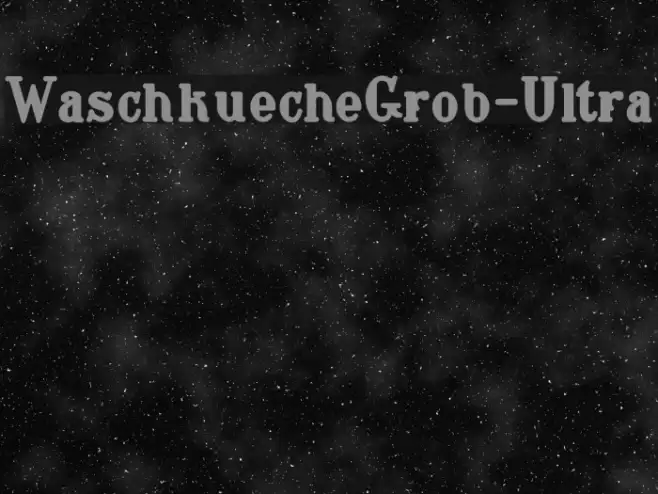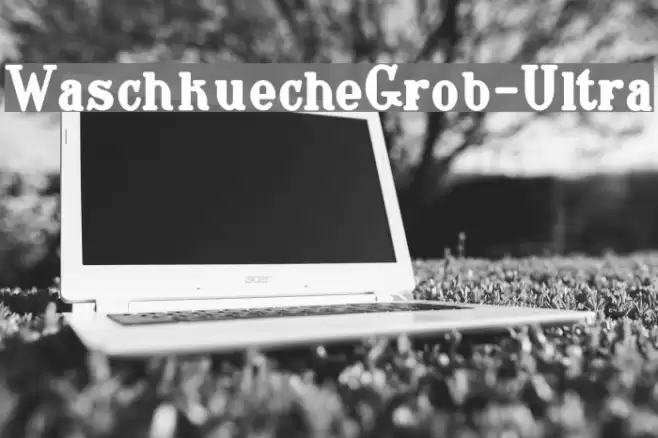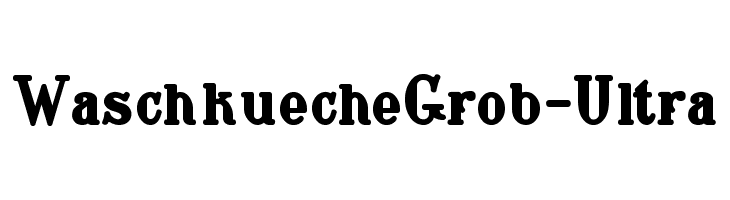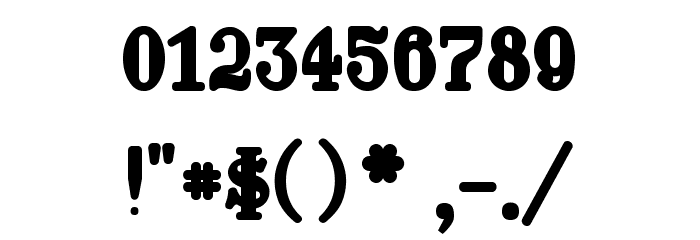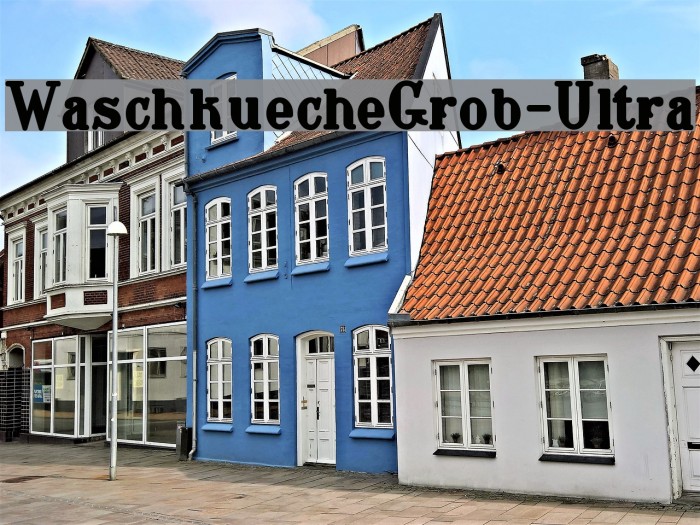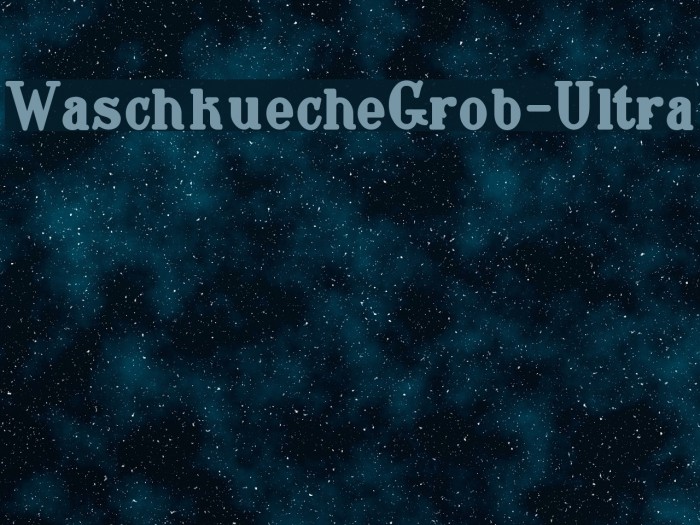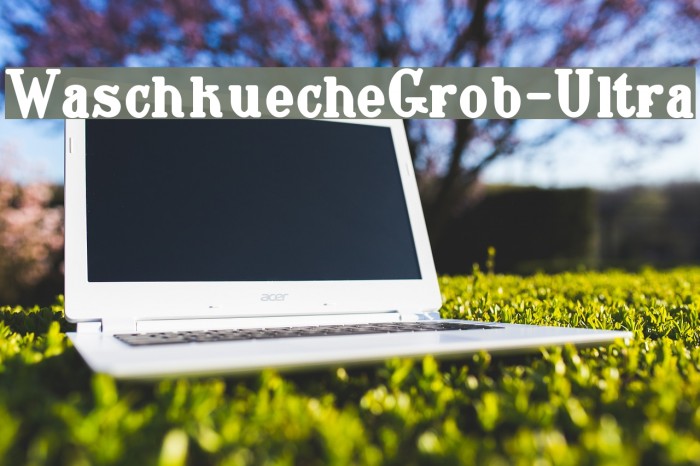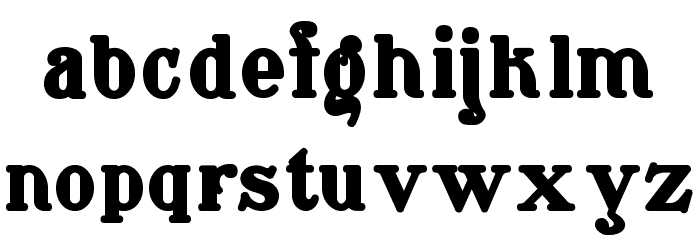
WaschkuecheGrob-Ultra Font
WaschkuecheGrob-Ultra Description
This font features bold, thick strokes with a strong presence, making it highly suitable for impactful designs. The characters are well-defined with a slight curvature, giving them a unique and playful appearance. The uppercase letters are robust and commanding, while the lowercase letters maintain a consistent style with slightly rounded edges. The numerals are equally bold, ensuring clarity and readability. Special characters are designed to match the overall boldness, making them stand out in any composition. This font's distinct style is perfect for creating attention-grabbing headlines or logos.
A bold, playful font with thick strokes and rounded edges, ideal for impactful designs from Uncategorized fonts.
- Proposed Projects: Perfect for branding, poster design, headlines, and any project requiring a strong visual impact.